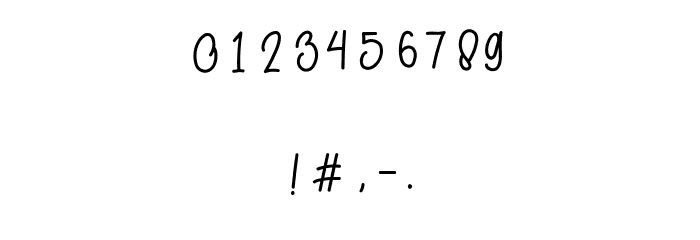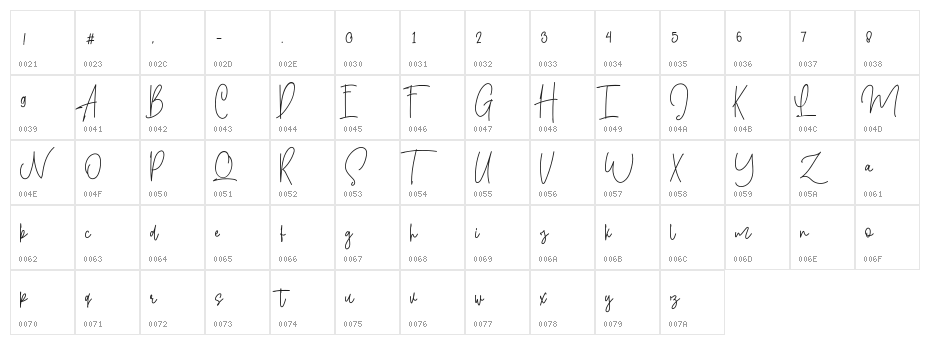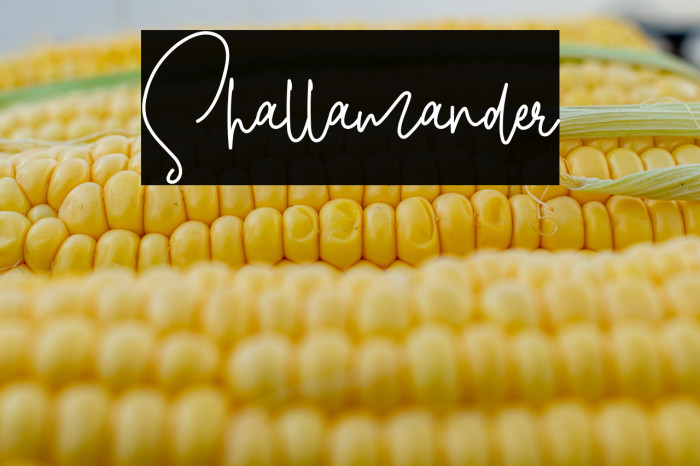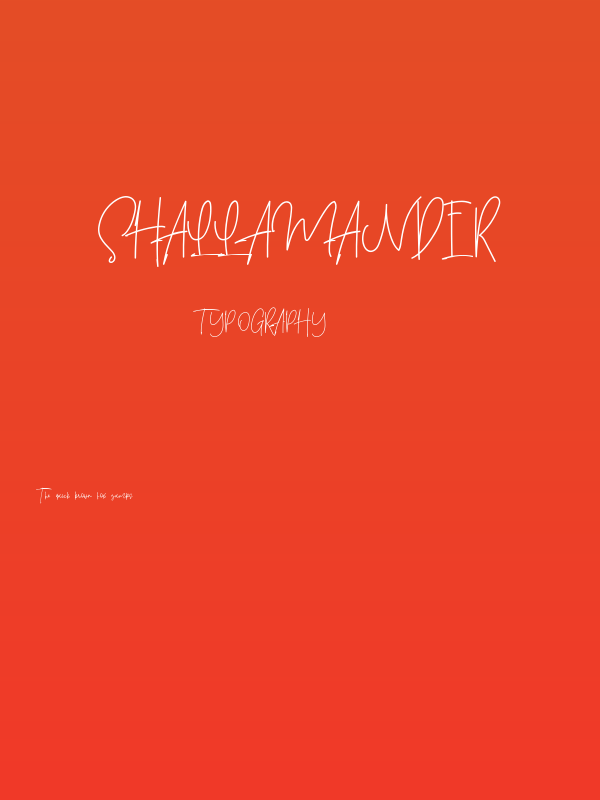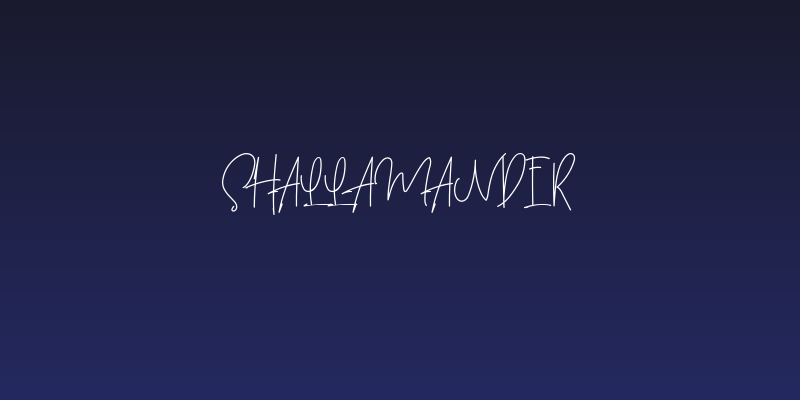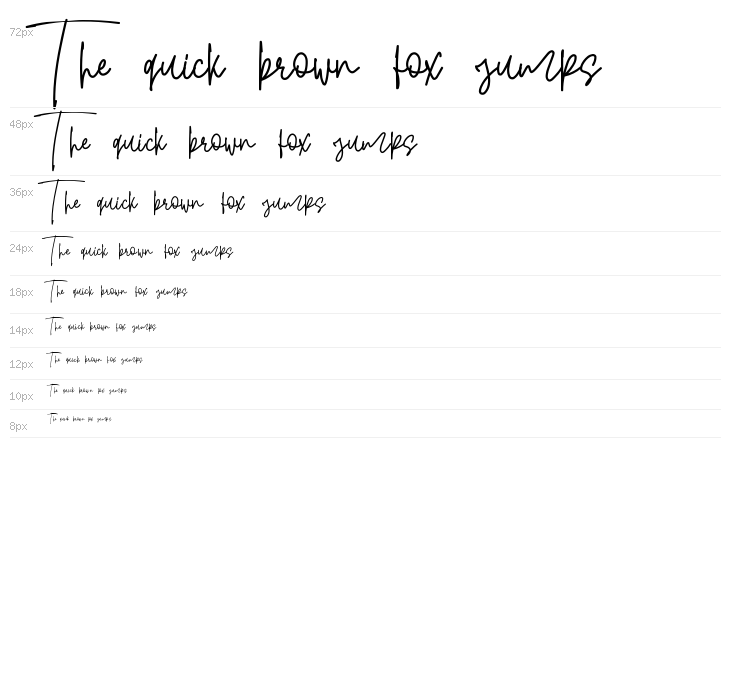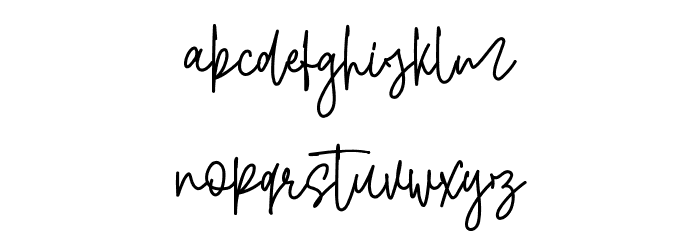
Shallamander Font
Shallamander Description
This font features a whimsical, handwritten style with a playful and casual aesthetic. The uppercase letters are tall and slender, with a slight slant that adds a dynamic flow to the text. The lowercase letters maintain a consistent style, with smooth curves and a slightly irregular baseline that enhances the handwritten feel. The numerals are clear and legible, matching the overall style of the alphabet. Special characters are included, maintaining the same playful and informal design. This font is perfect for projects that require a personal touch, such as invitations, greeting cards, or creative branding.
Overall StyleCasual, Whimsical
Use CaseHeadlines, Creative projects, Personal branding
Proposed ProjectsIdeal for invitations, greeting cards, personal branding, and creative projects.